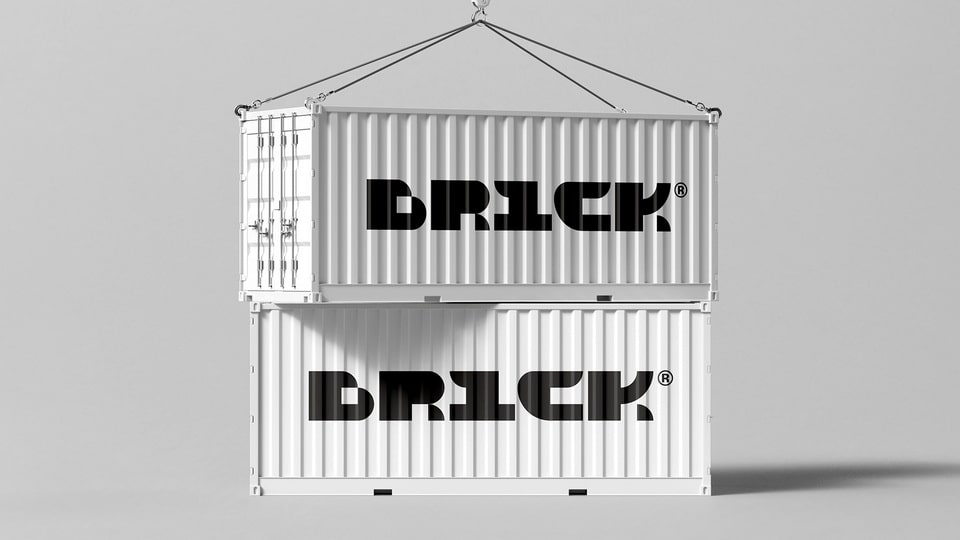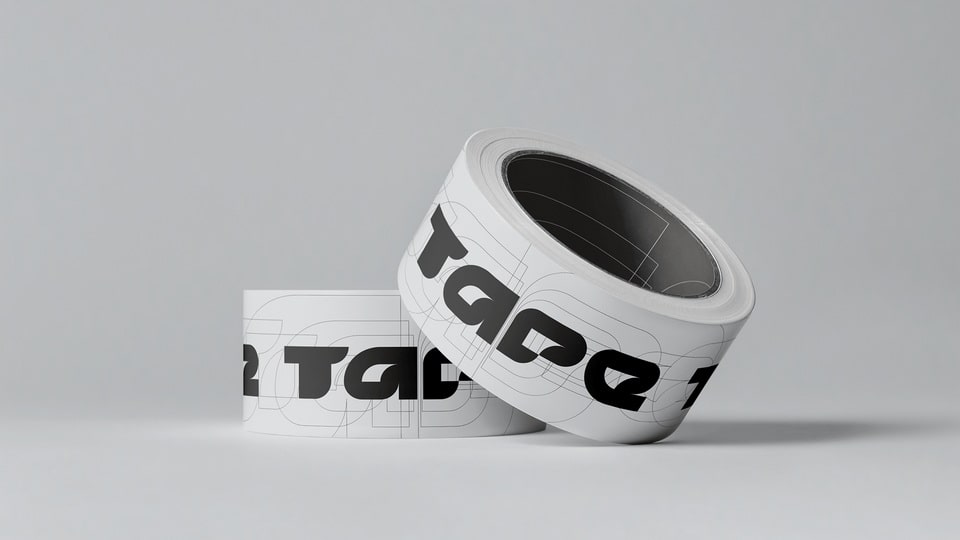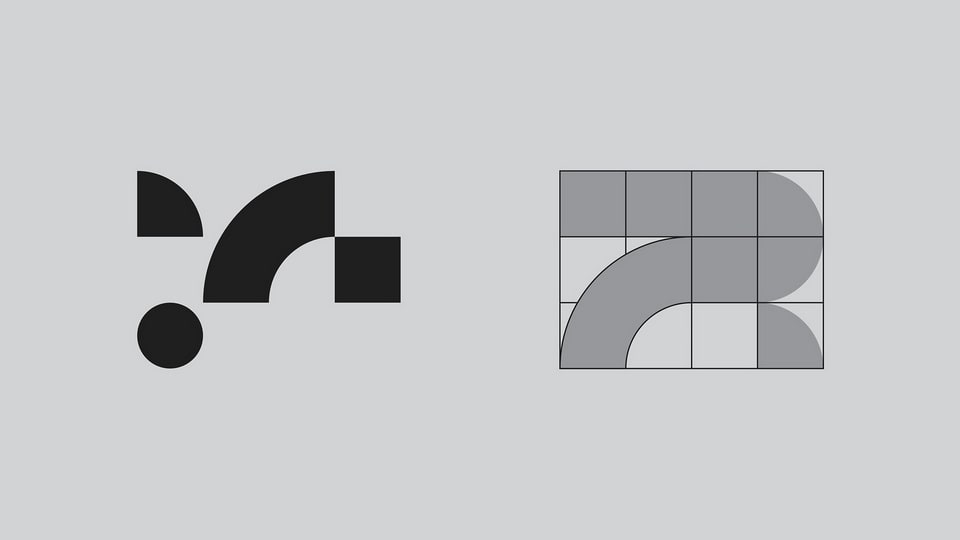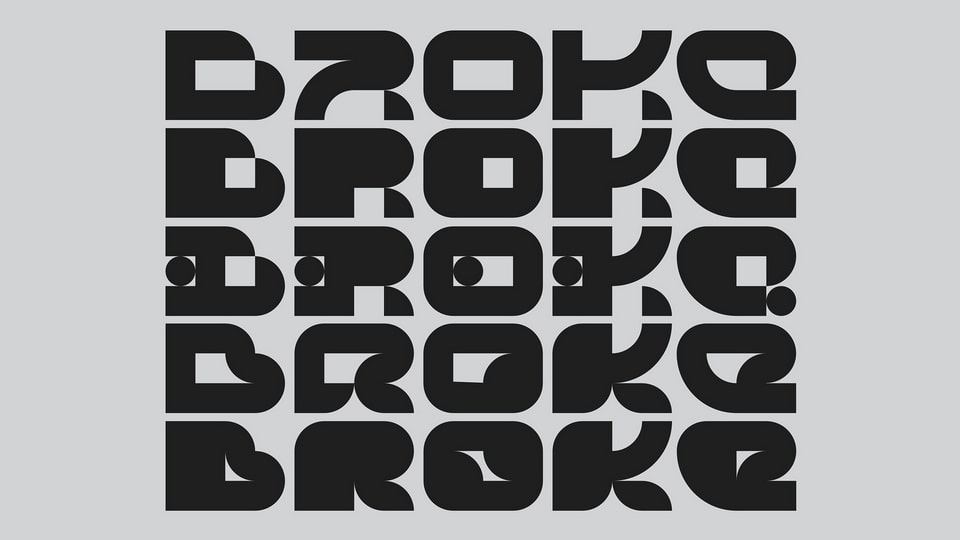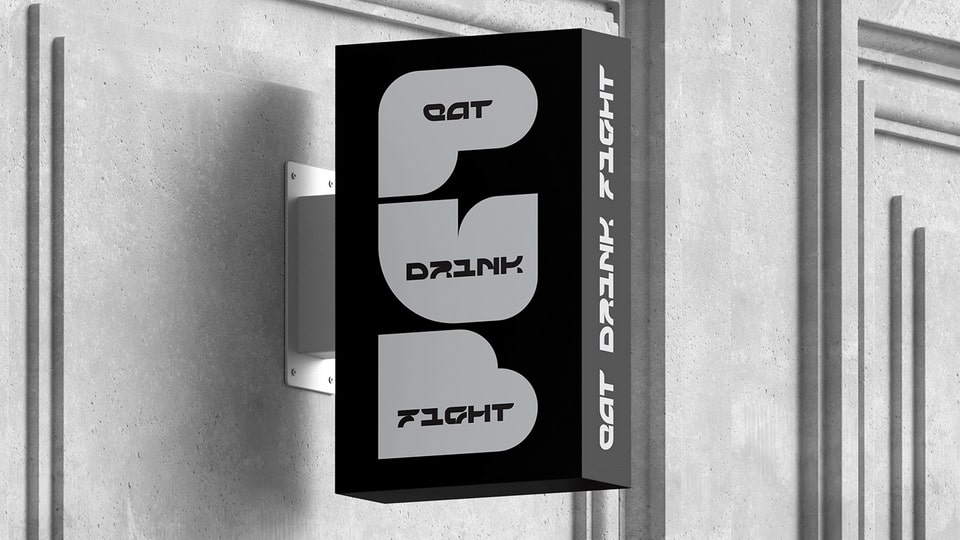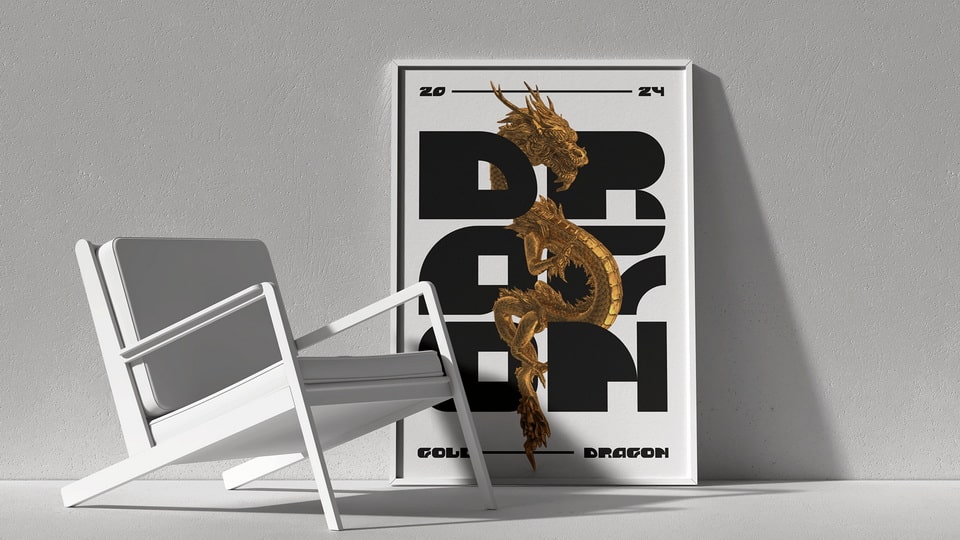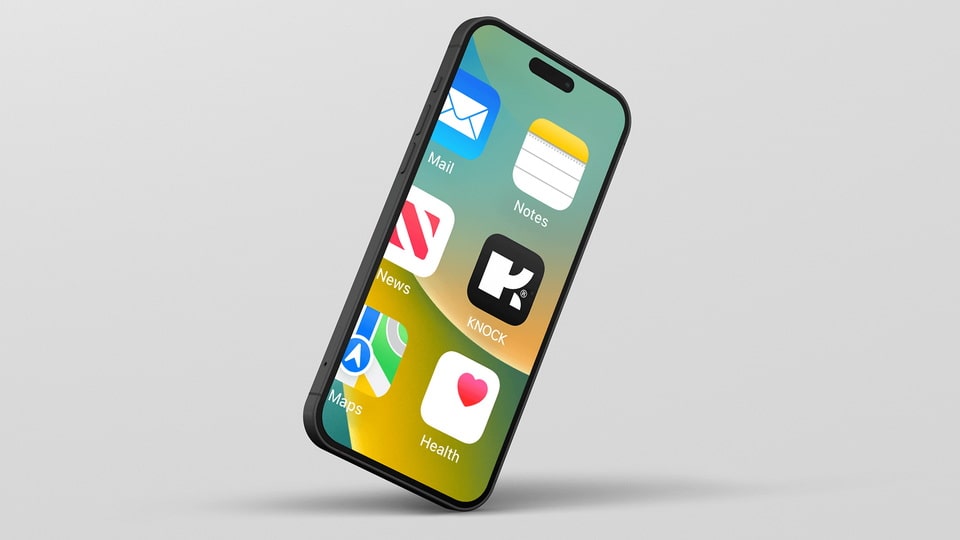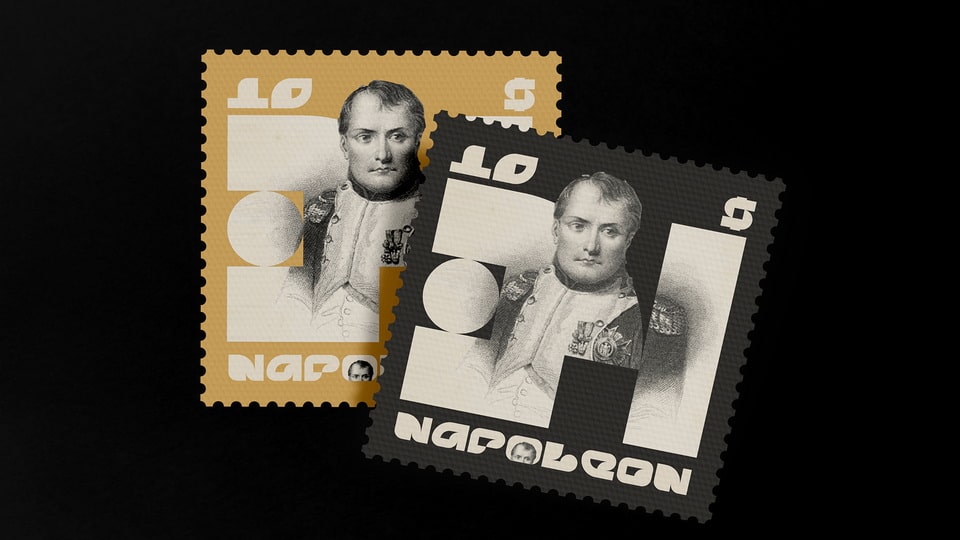
Broke Typeface
Broke is a tiny font family inspired by Lego. This display font using only 4 geometric shapes. The idea of using simple geometric forms to create a constructor system font came from my last project for 36 days of types.
The typeface based on the 4×3 grid to challenge myself and create a wider form of letters. There are 5 different versions: “Broke” – 3 weights and “Broke Fat” – 2 weights.